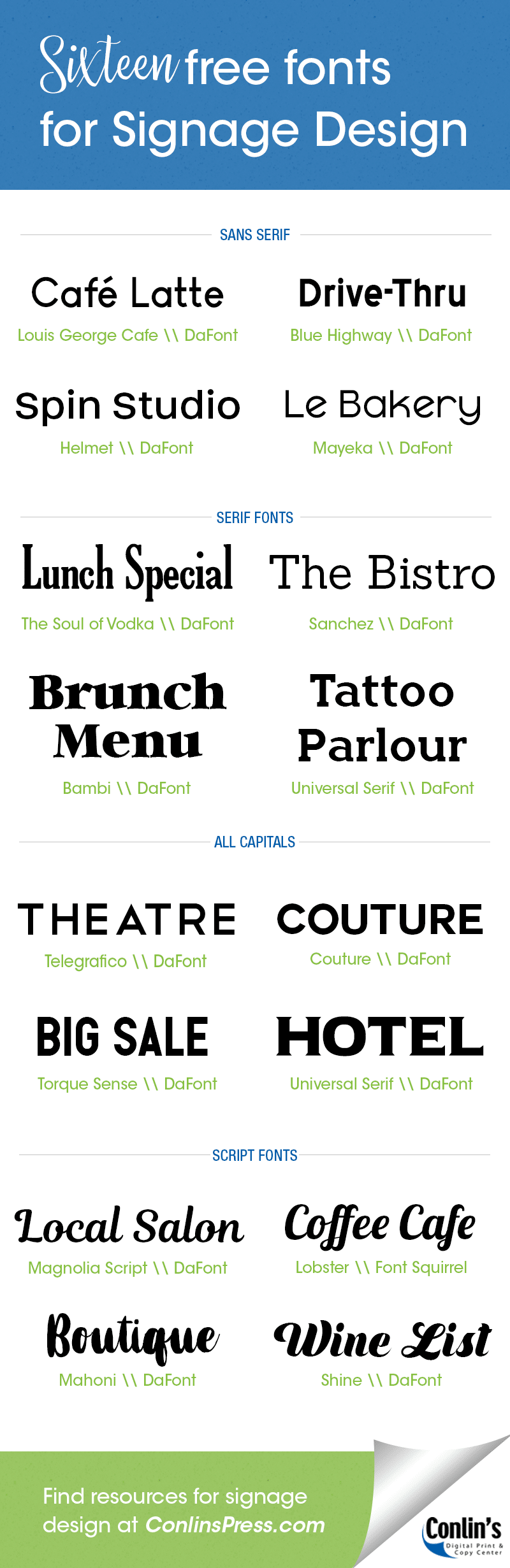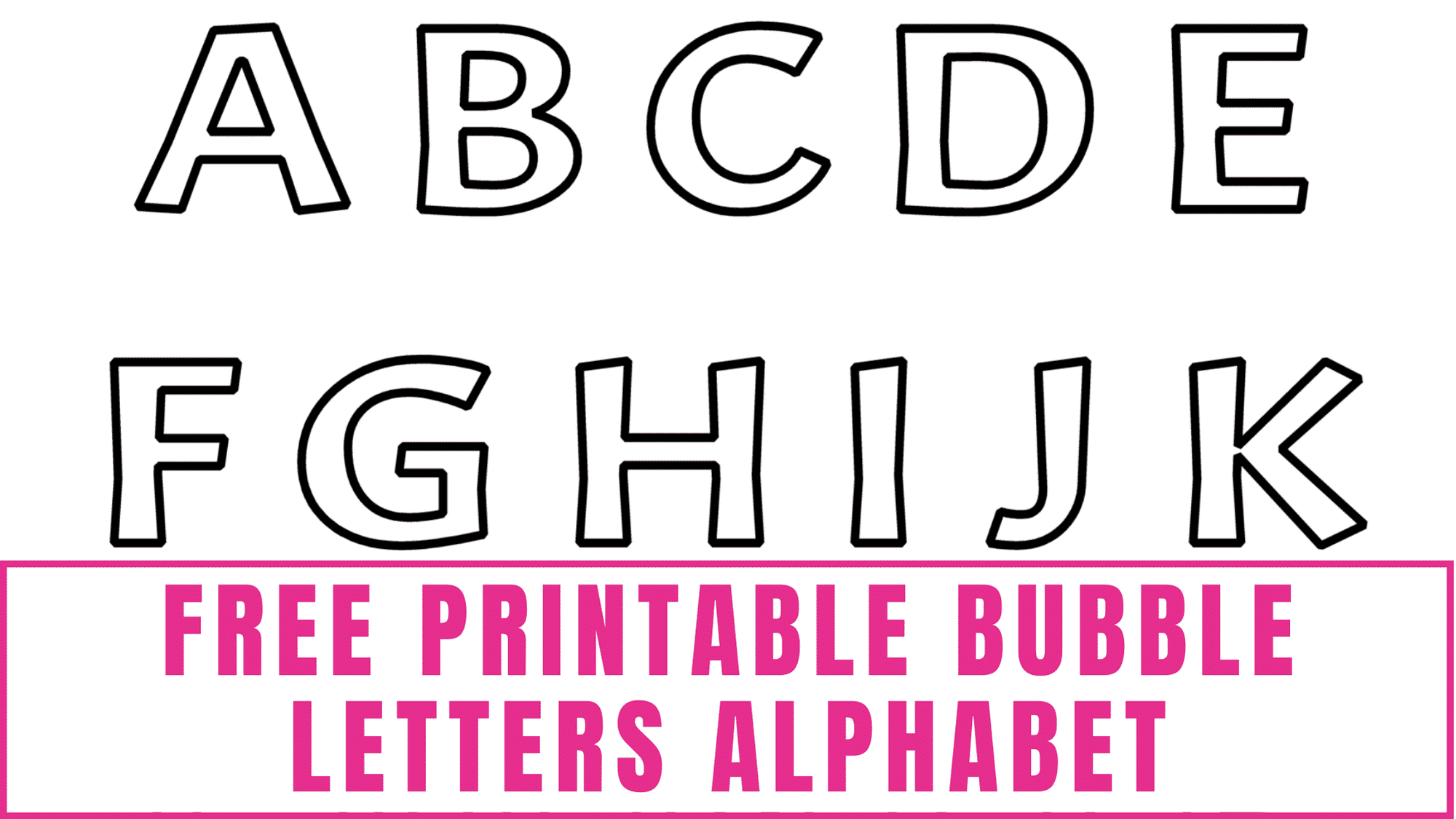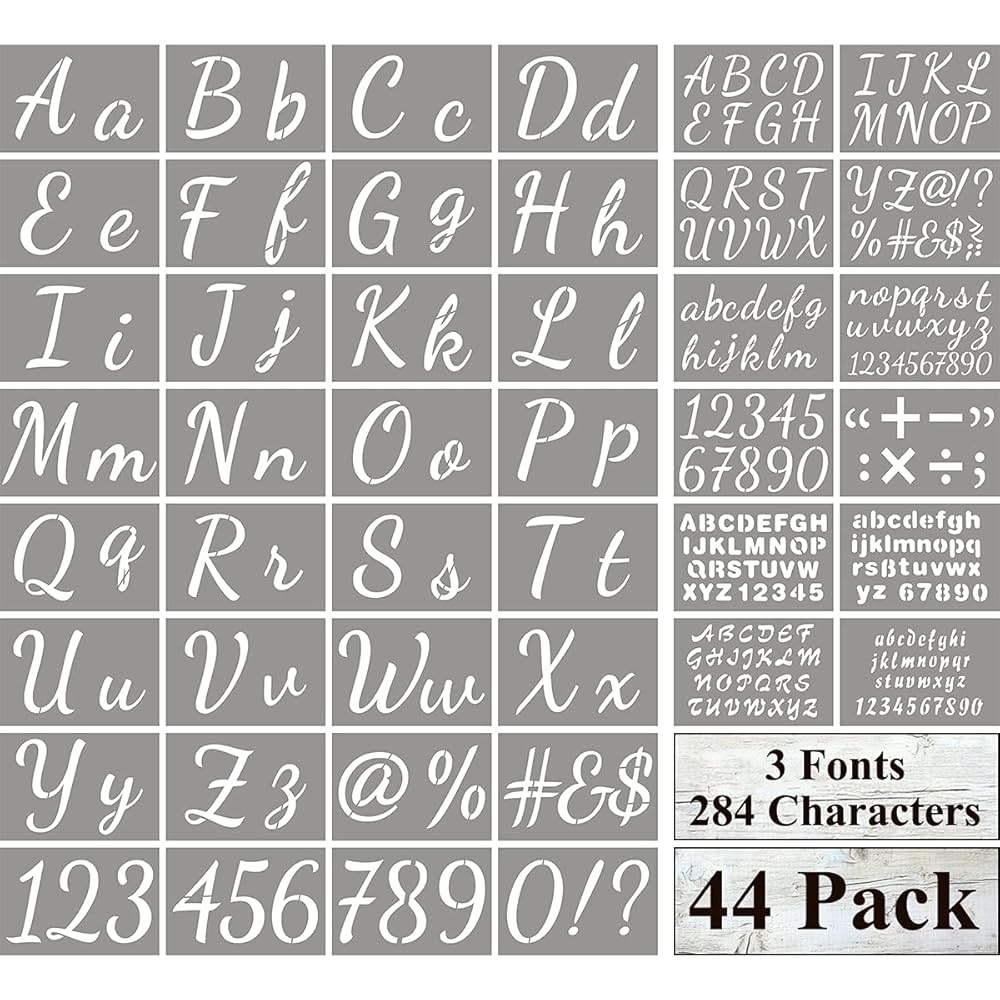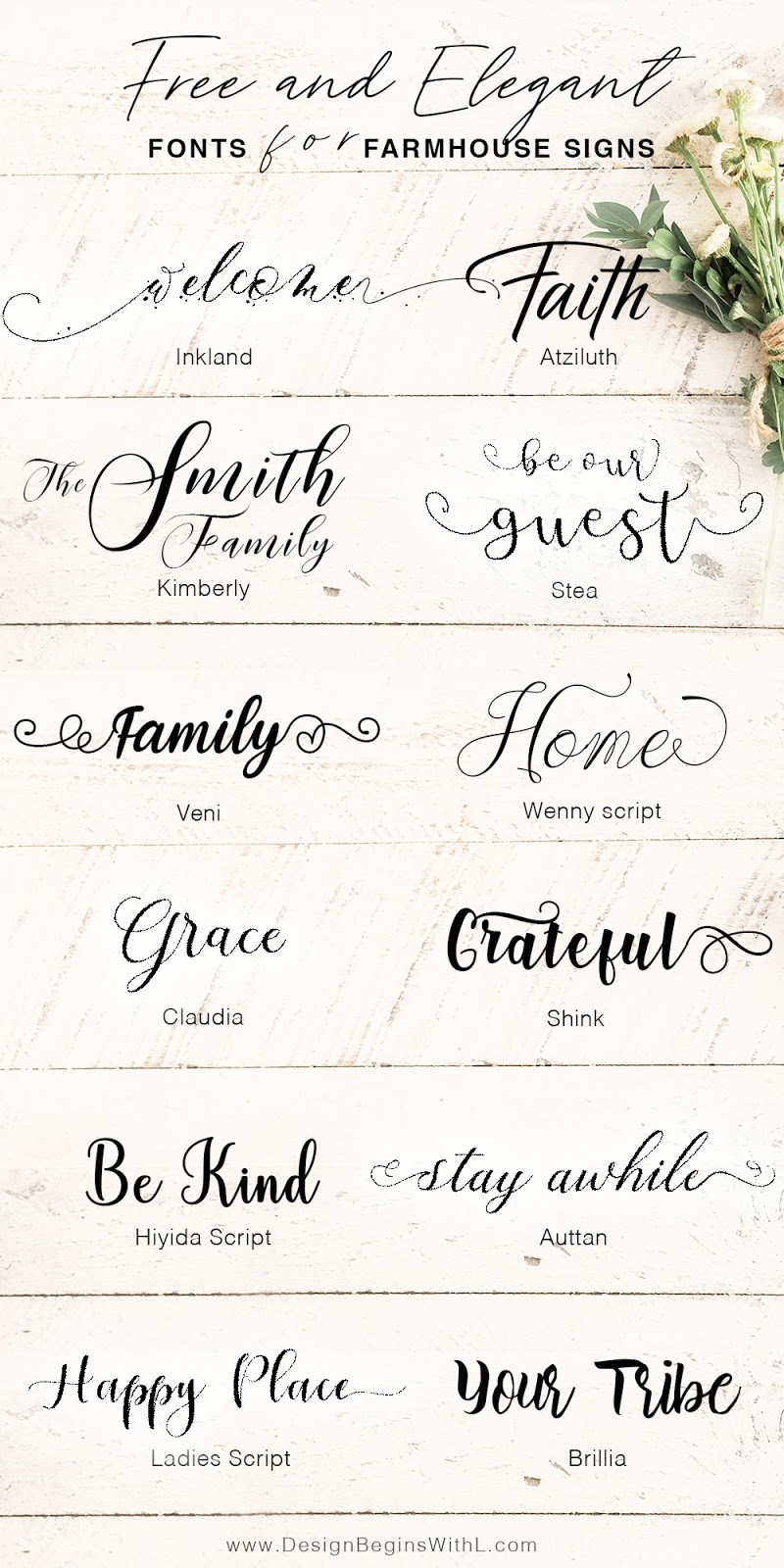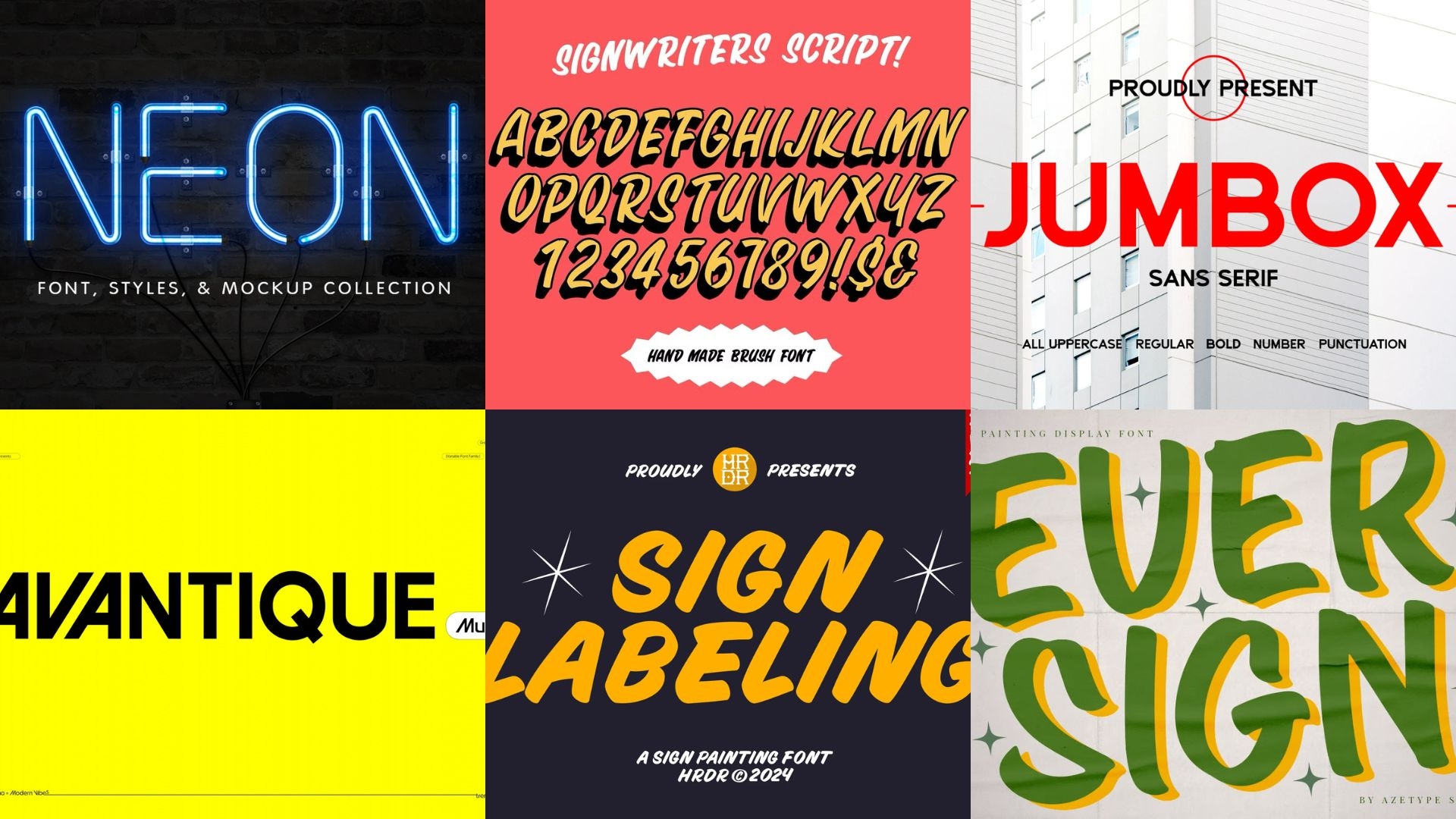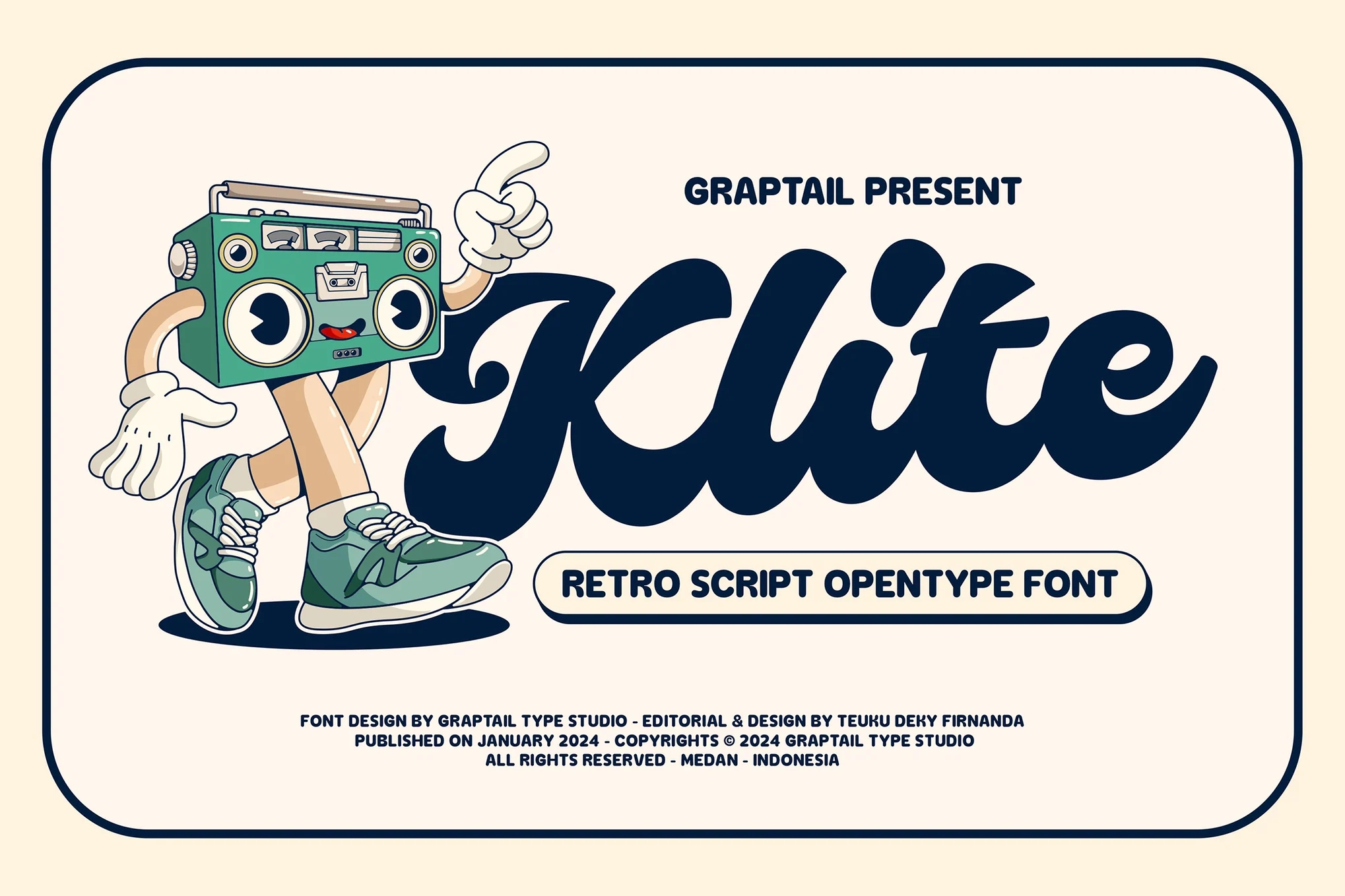
Printable Fonts For Signs
Are you looking to add a personal touch to your signs or posters? Choosing the right font can make all the difference. With so many options out there, it can be overwhelming to find the perfect one. But fear not, we’ve got you covered!
Printable fonts for signs are a great way to make your message stand out. Whether you’re creating a flyer for an event or a sign for your business, the font you choose can help convey your message effectively. Let’s explore some popular options!
Discovering the Best Printable Fonts for Signs
One popular choice is the classic and timeless font, Helvetica. Its clean lines and simplicity make it a versatile option for a wide range of sign designs. Another great option is the playful and whimsical font, Comic Sans. It’s perfect for adding a fun and casual vibe to your signs.
If you’re looking for something more elegant and sophisticated, consider using the script font, Lobster. Its cursive style adds a touch of class to any design. For a modern and sleek look, try using the sans-serif font, Futura. Its geometric shapes and clean lines make it a popular choice for contemporary signage.
Don’t be afraid to experiment with different fonts to see which one best fits your style and message. Whether you’re promoting an event, advertising a sale, or simply adding a personal touch to your space, the right font can make all the difference. So go ahead, get creative and have fun with your signage!
Next time you’re designing a sign or poster, remember to consider the font you use. With the right printable fonts for signs, you can create eye-catching and memorable designs that will leave a lasting impression on your audience. Happy designing!